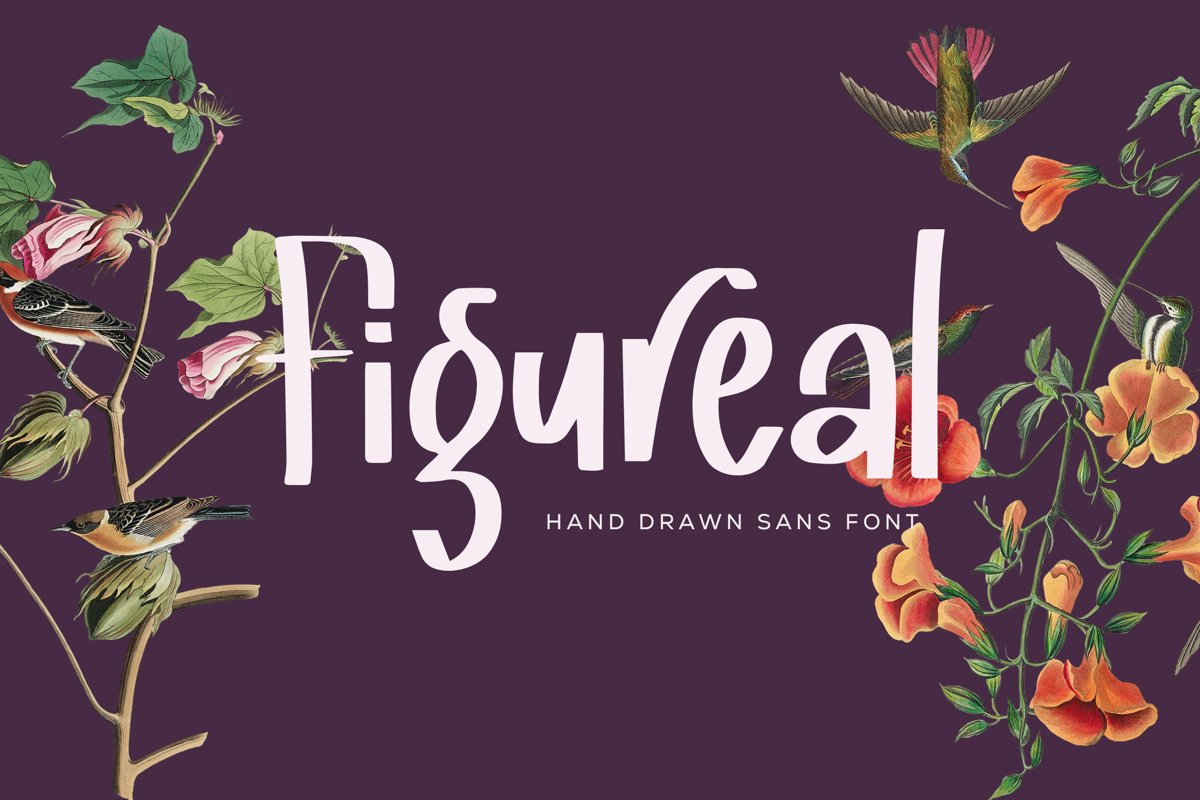
Figureal - Hand Drawn Sans Font that contain lowercase, uppercase, symbol, and also support multi language. There’s a lot ligatures in this font. This Font also comes with ligatures, alternates and many more. this font suitable for fashion, branding, catalog and other design what you want.
Figureal